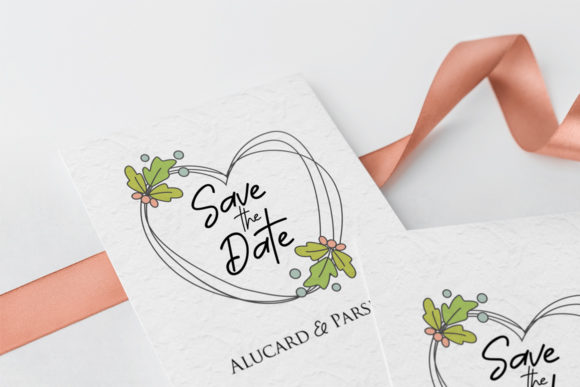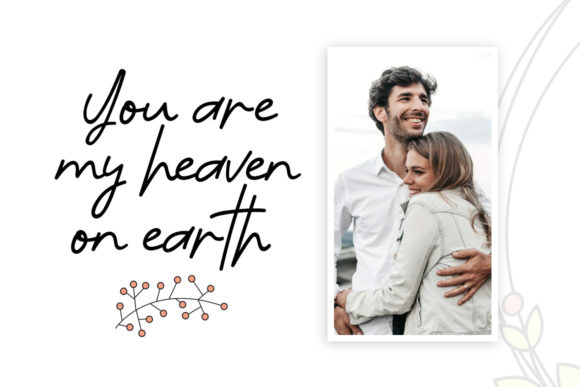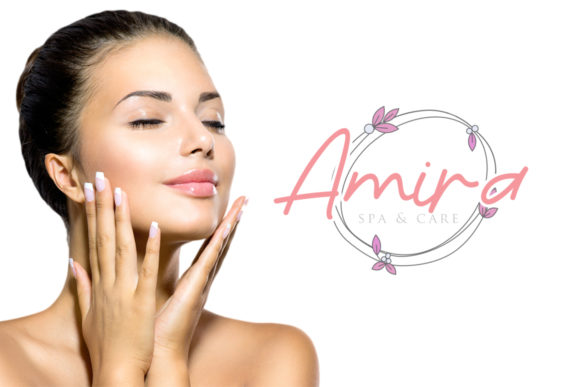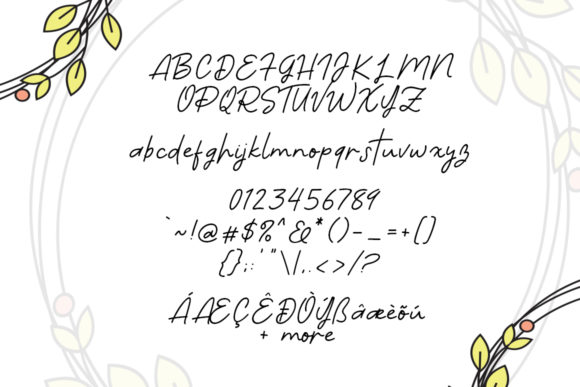
Introducing Blite Font: Elevate Your Design Projects with Classic Elegance
In the world of typography, fonts play a crucial role in bringing a design project to life. A well-chosen font can elevate a design from ordinary to extraordinary, conveying the right tone and personality to the audience. For designers and crafters looking to add a touch of classic elegance to their work, Blite Font is an excellent choice. Inspired by traditional typography, Blite Font brings its own unique style to the table, making it an ideal choice for a wide range of design projects.
What is Blite Font?
Blite Font is a beautifully crafted typeface that draws inspiration from classic typography. Its unique design combines traditional elements with a modern twist, resulting in a font that is both timeless and fresh. With its elegant lines, refined curves, and precise letter spacing, Blite Font is perfect for adding a touch of sophistication to any design project.
Key Features of Blite Font
- Classic Inspiration: Blite Font is inspired by traditional typography, making it an excellent choice for designers looking to add a touch of vintage charm to their work.
- Unique Style: Blite Font has its own distinct personality, setting it apart from other fonts in the same genre.
- Versatility: Blite Font is suitable for a wide range of design projects, including branding, headings, wedding designs, invitations, signatures, logos, labels, and more.
- Elegant Lines and Curves: The font features elegant lines, refined curves, and precise letter spacing, making it perfect for designs that require a high level of sophistication.
Use Cases for Blite Font
Blite Font is an incredibly versatile typeface that can be used in a variety of design projects. Here are some examples of how you can use Blite Font to elevate your designs:
- Branding: Use Blite Font to create a strong brand identity that exudes elegance and sophistication.
- Wedding Designs: Add a touch of romance and whimsy to your wedding designs, including invitations, programs, and stationery.
- Headings and Titles: Use Blite Font to create stunning headings and titles that grab attention and add visual interest to your designs.
- Logos and Signatures: Create professional-looking logos and signatures that convey a sense of tradition and heritage.
- Labels and Packaging: Use Blite Font to add a touch of elegance to your labels and packaging designs.
Why Choose Blite Font?
With so many fonts available, why choose Blite Font? Here are just a few reasons why Blite Font stands out from the crowd:
- Unique Design: Blite Font has a unique design that sets it apart from other fonts in the same genre.
- High-Quality Typography: The font is crafted with precision and attention to detail, ensuring that it looks great in any design project.
- Easy to Read: Blite Font is easy to read, making it perfect for designs that require a high level of legibility.
- Versatile: Blite Font can be used in a wide range of design projects, making it a great addition to any designer’s toolkit.